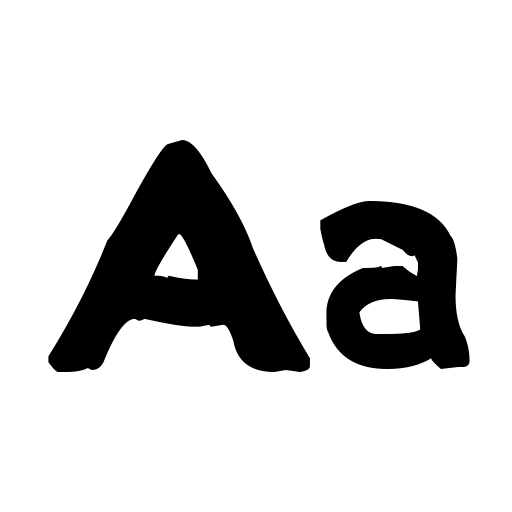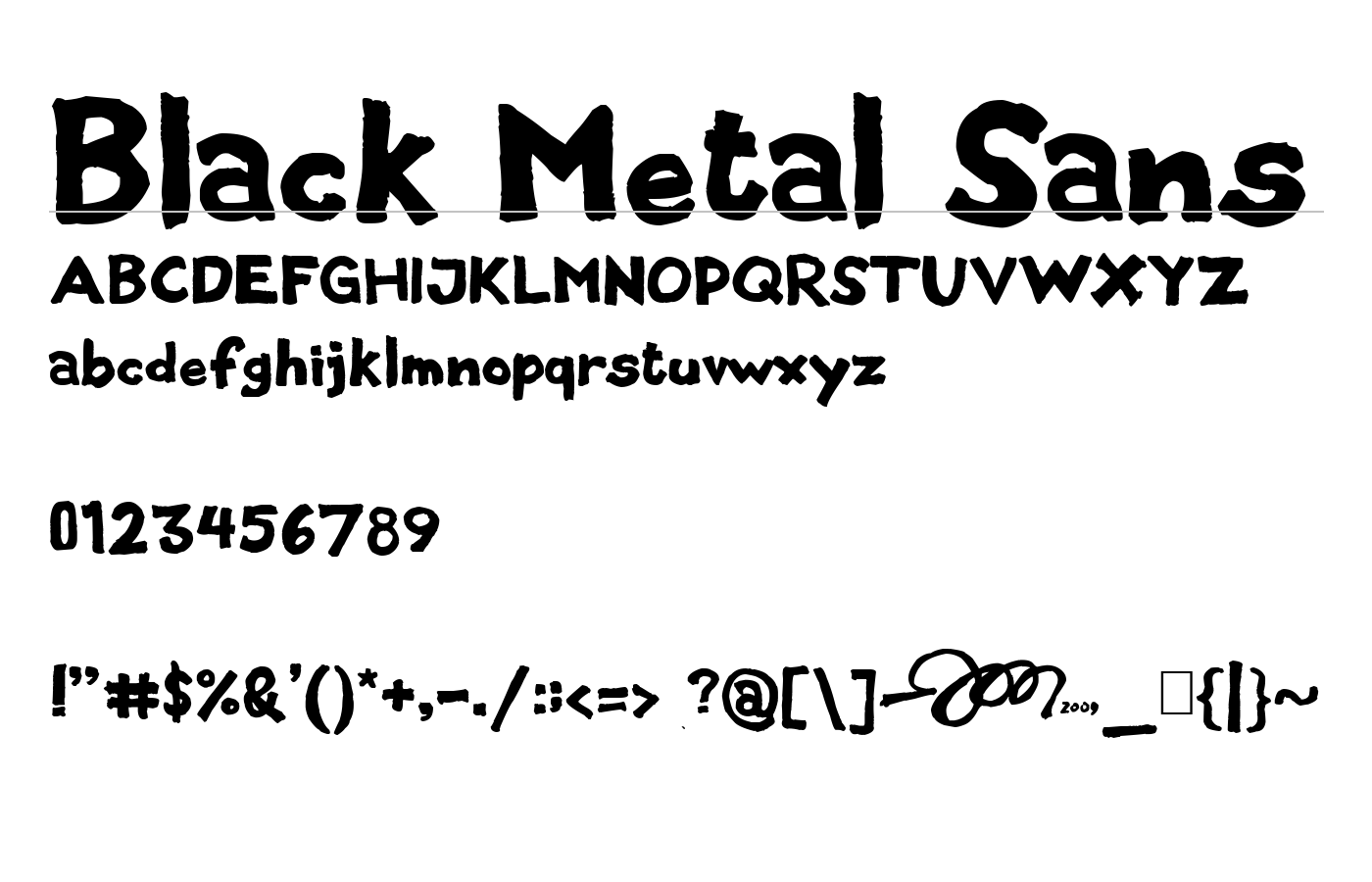
Black Metal Sans is a bold, playful sans serif font with a hand-drawn, rough-edged style that adds a casual and artistic feel to any design. Its uneven strokes and slightly condensed letterforms give it a unique, energetic personality that works well for creative projects, branding, and expressive headlines. This font shines when used in informal or edgy contexts where a fun and distinctive visual voice is desired.
Black Metal Sans Font